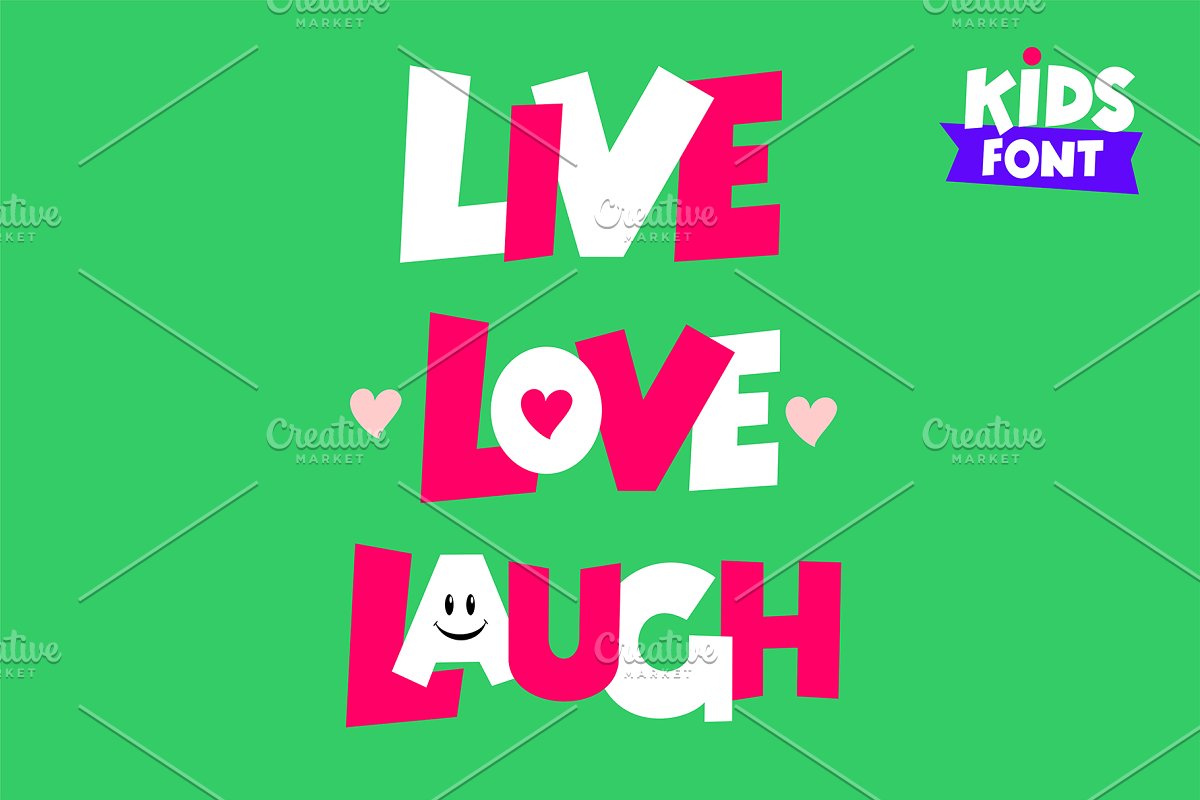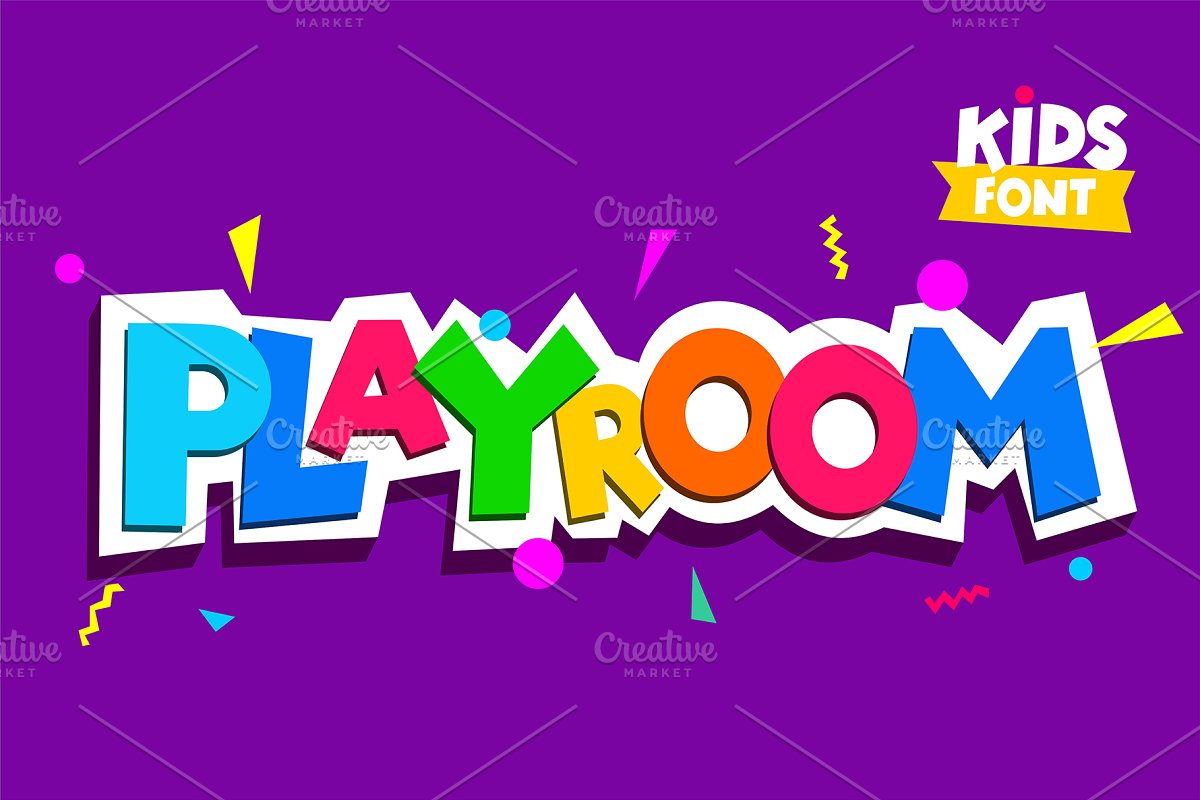
About the Kids otf Font
Kids font in the cartoon style, alphabet and numbers, Set of multicolored bright letters for inscriptions and your design , Vector illustration, Isolated on white background, EPS File + JPEG high-res and PNG (2000dpi)Black font OTF